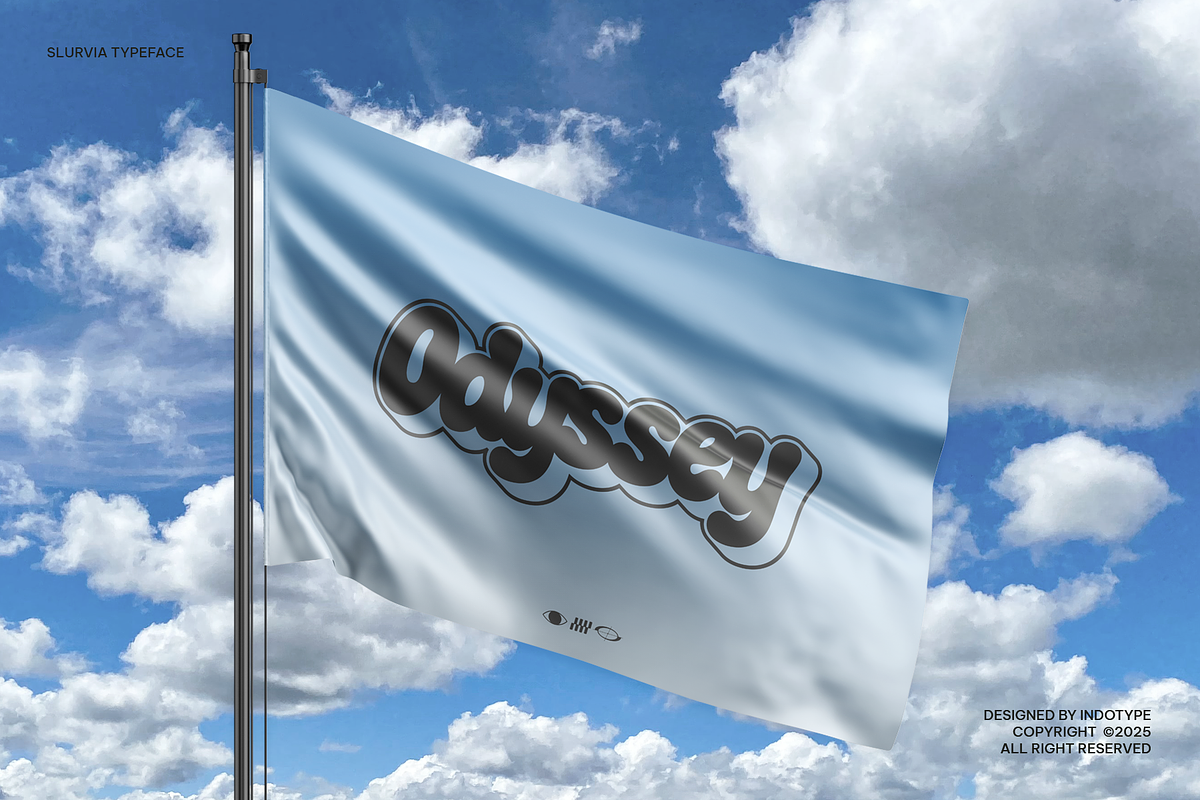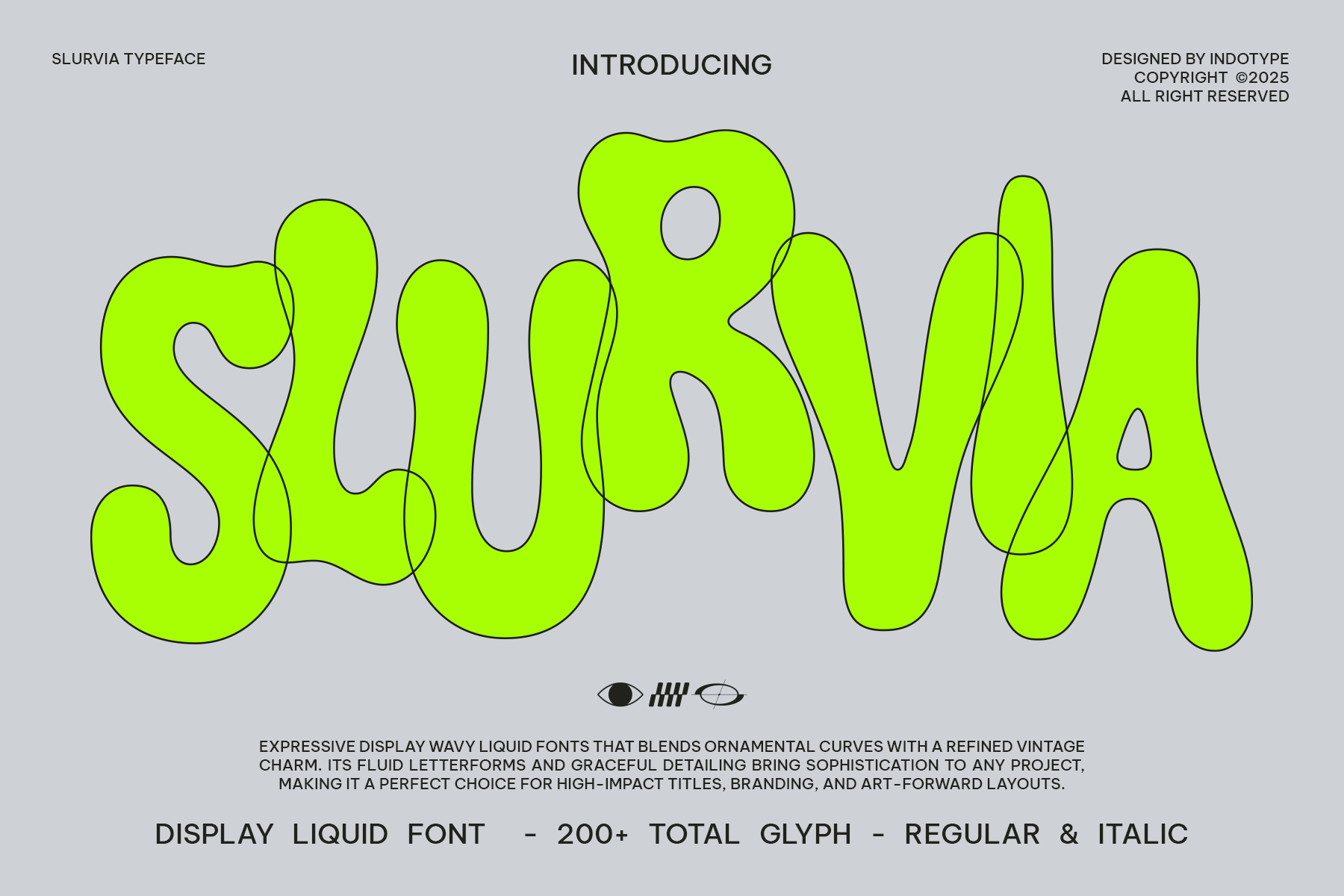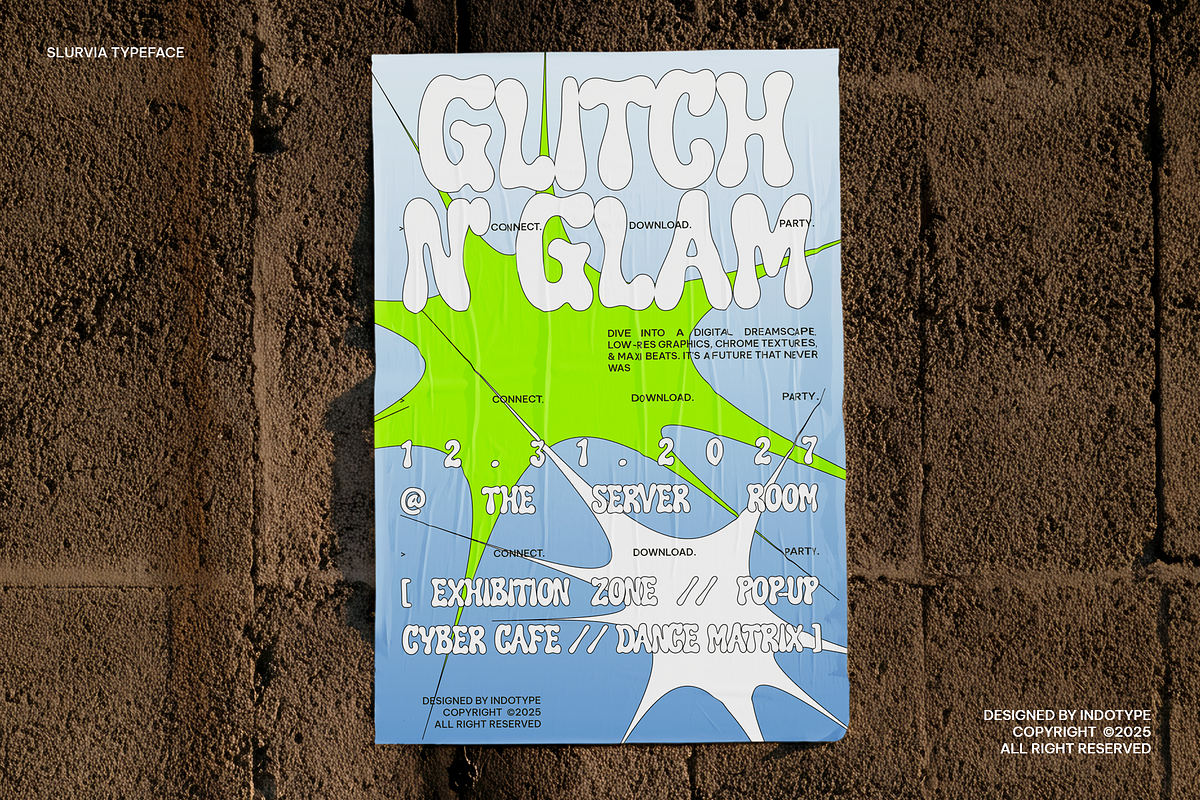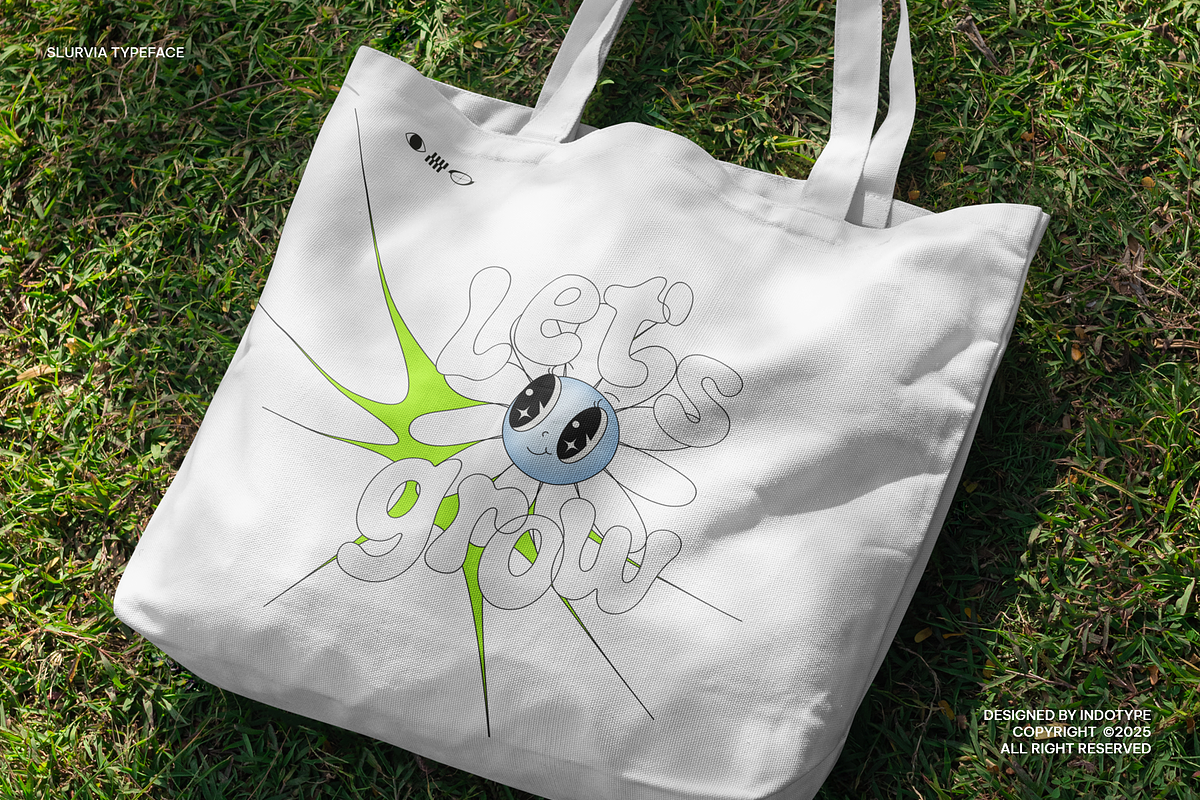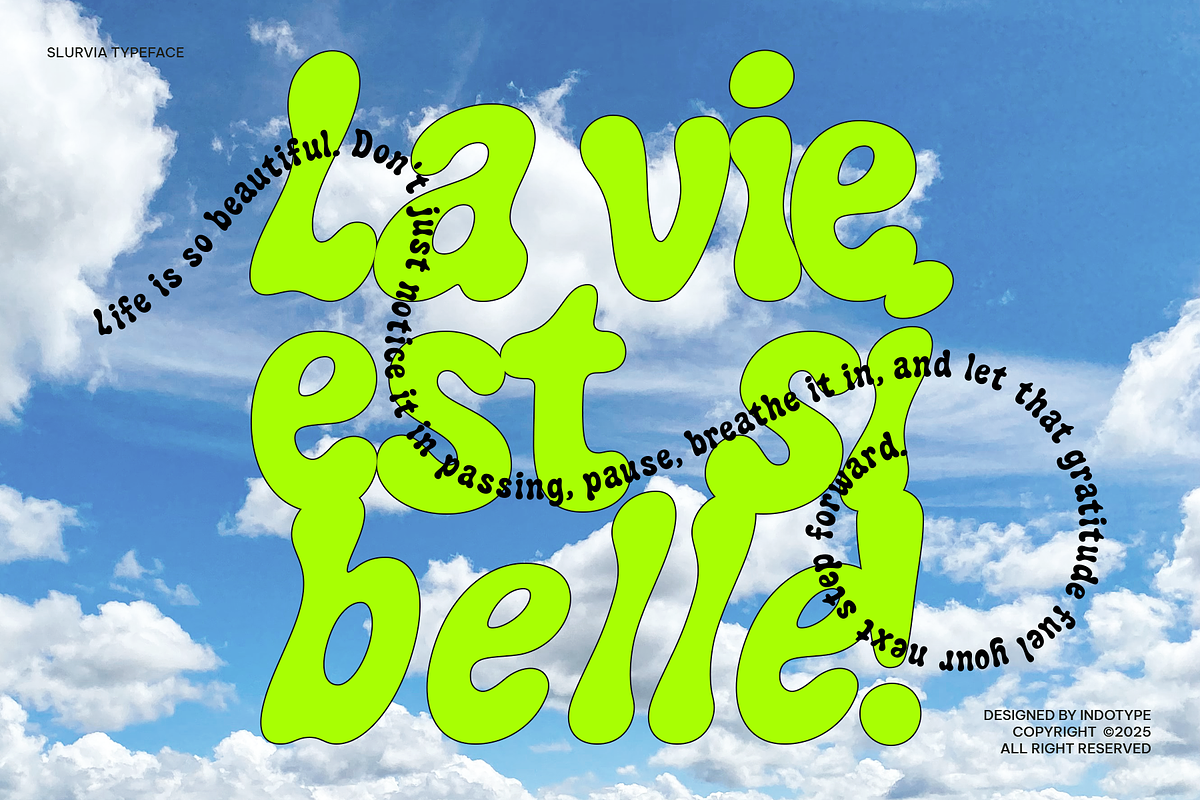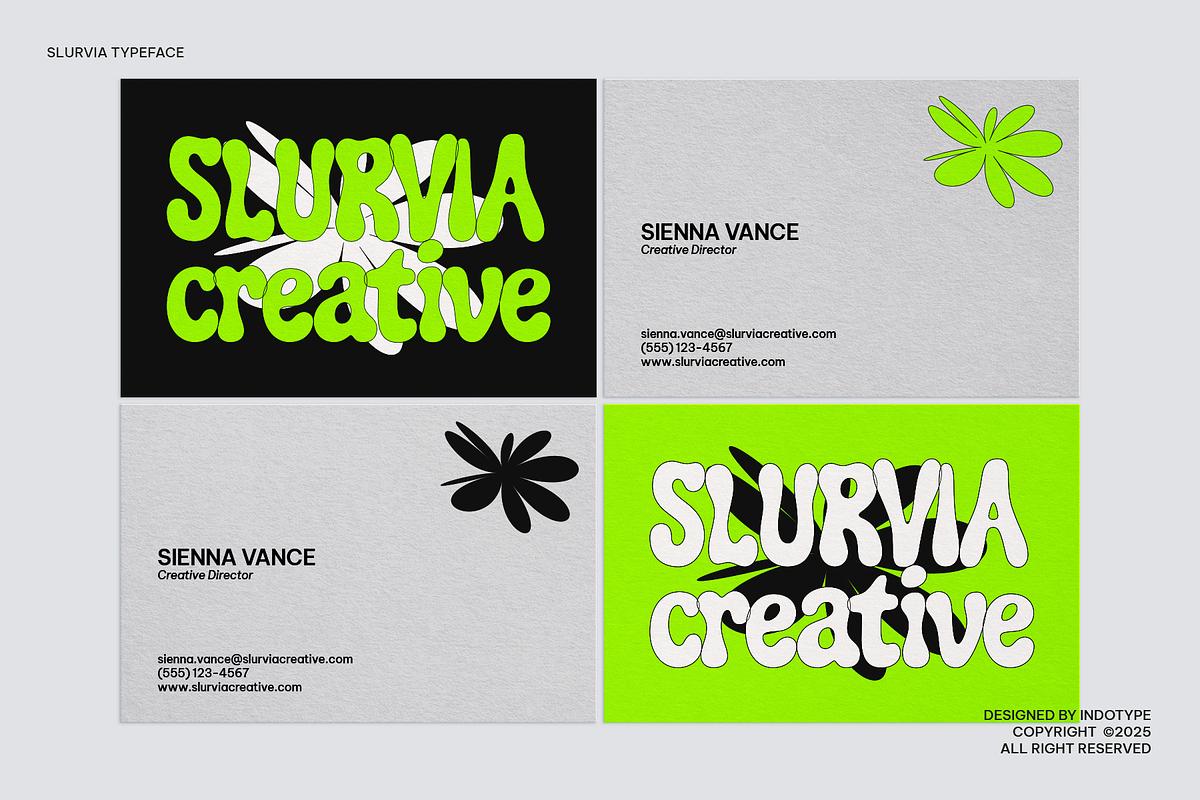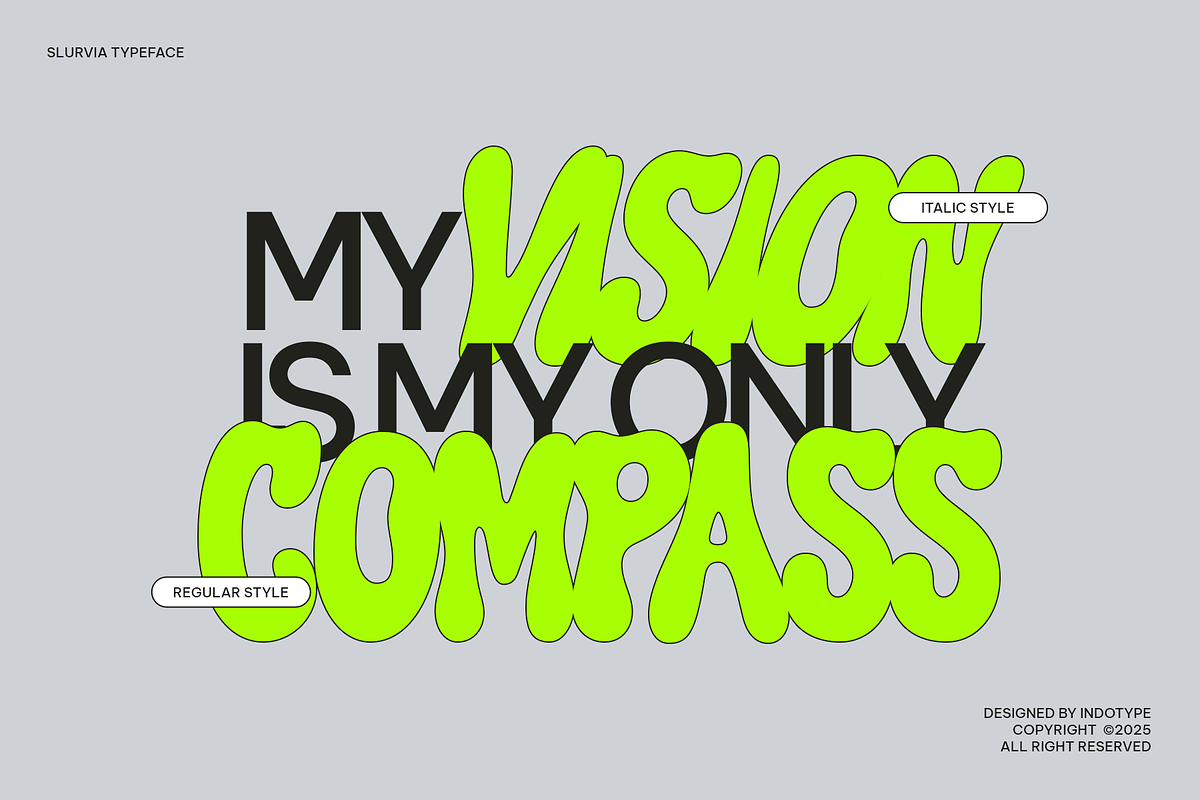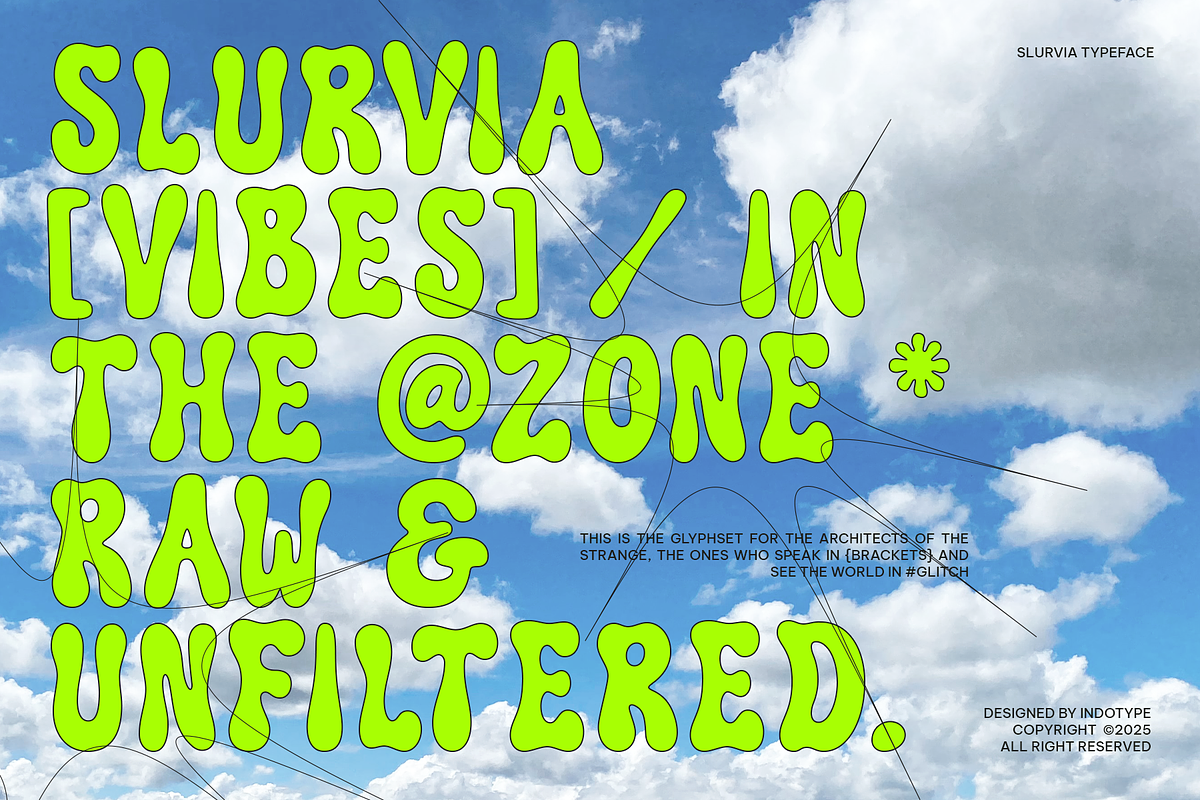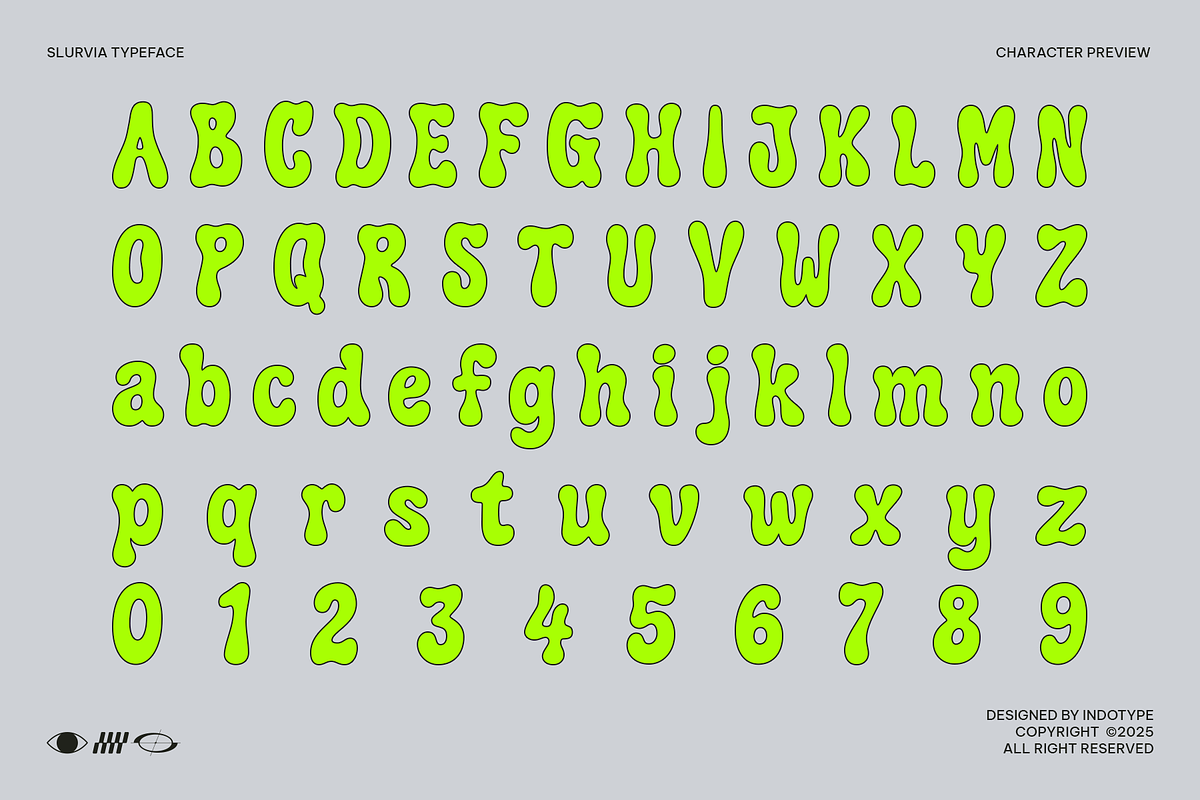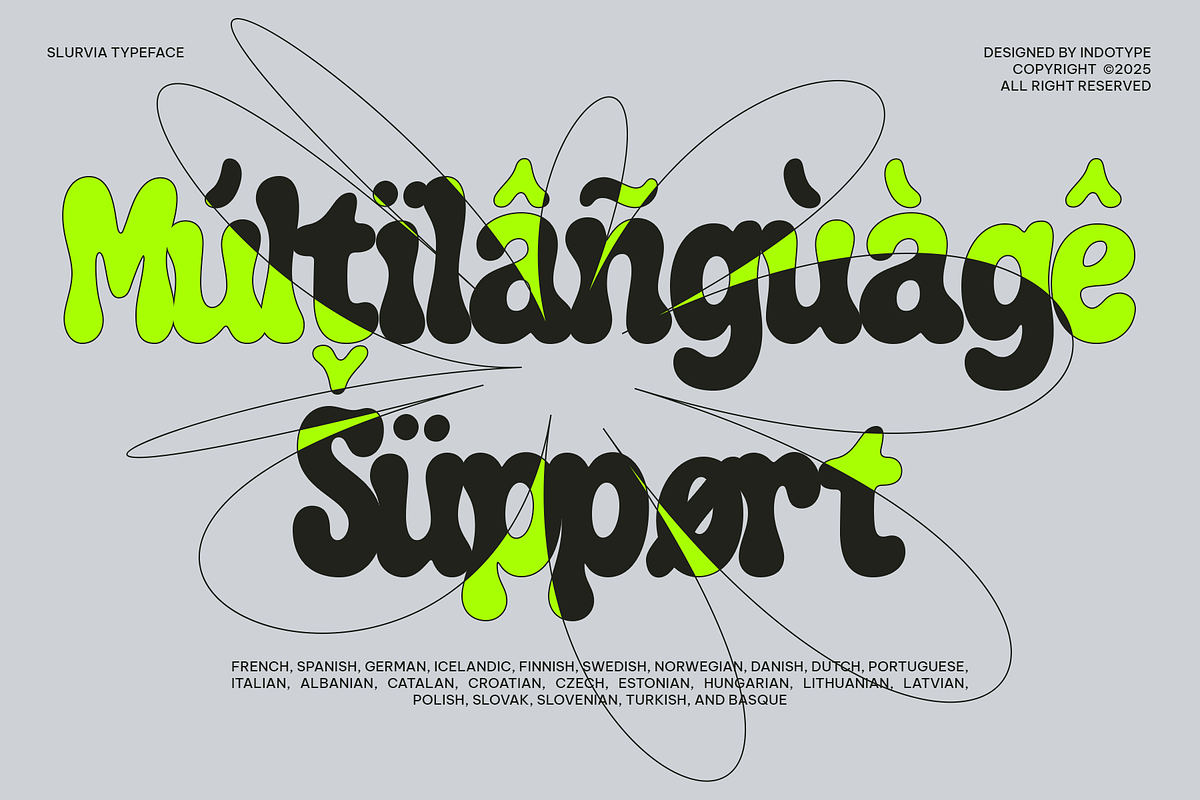
Slurvia - Display Liquid Font
Slurvia is an expressive display typeface that captures the fluidity of motion and the playful character of liquid forms. With its wavy, ornamental structure and vintage-inspired curves, Slurvia merges organic movement with a bold, modern sensibility.
Designed for creative designers and brands seeking unique visual expression, its exaggerated shapes and graceful flow bring a sense of rhythm and personality to any layout. Each letter is meticulously crafted to balance unpredictability and harmony, offering a distinctive presence in every composition.
Perfect for high-impact titles, branding, posters, editorial layouts, and art-driven designs, Slurvia transforms words into dynamic visual statements that feel alive and fluid.